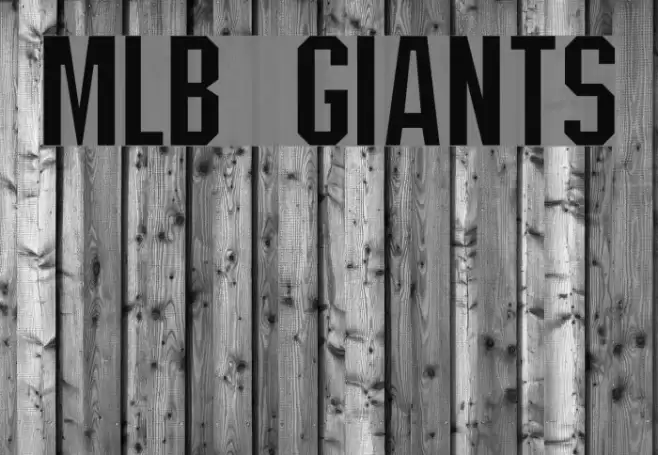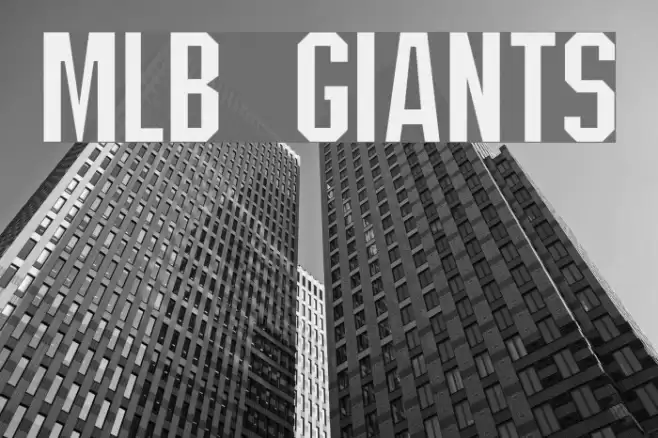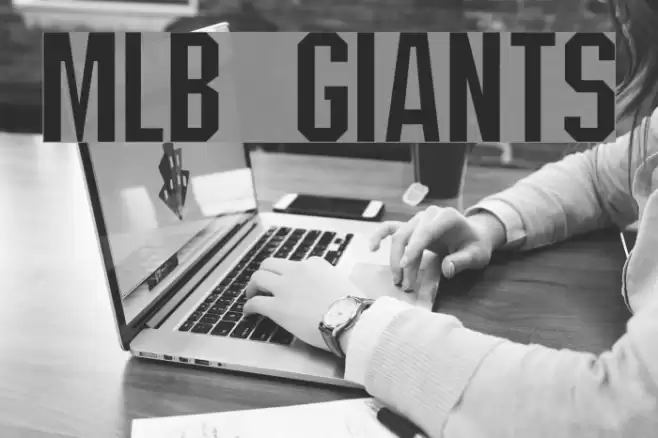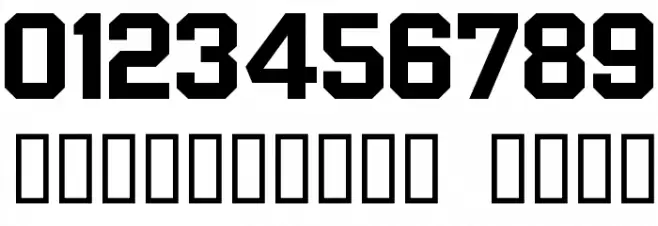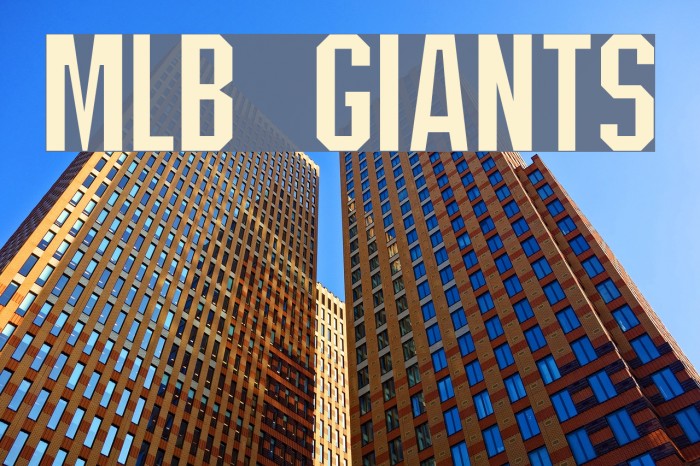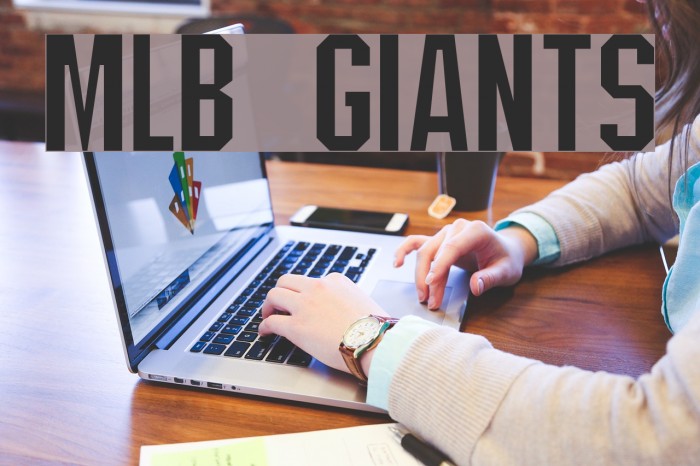
MLB Giants Font
MLB Giants Description
This font features a bold and impactful design with a strong geometric structure. The characters are uppercase and display a uniform height, contributing to a cohesive and balanced appearance. The font's angular edges and straight lines give it a modern and assertive look, making it ideal for creating a powerful visual presence. The numbers are equally bold, maintaining the same geometric style, which ensures consistency across different types of content. The absence of lowercase letters and special characters suggests a focus on simplicity and clarity, perfect for headlines or titles that need to stand out.
A bold, geometric font with a modern and assertive style from Uncategorized fonts.
- Proposed Projects: Ideal for sports branding, posters, headlines, and any project requiring a strong visual impact.